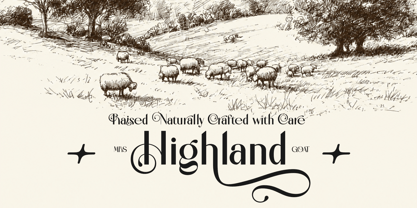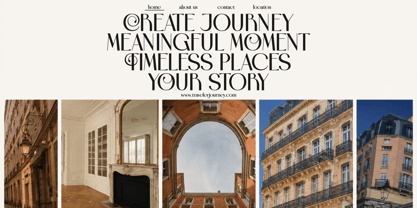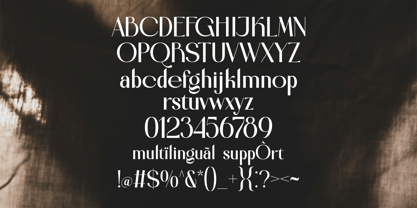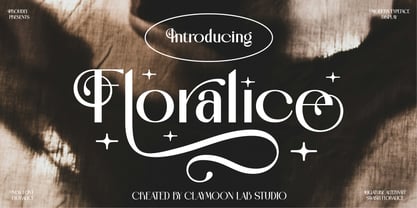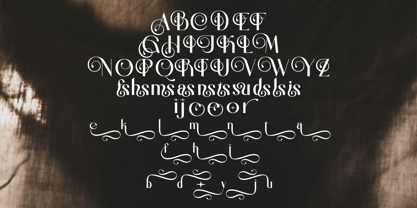
Floralice
Floralice — Modern Elegant Serif Font
Infuse your digital designs with sophistication and romantic charm using Floralice, a beautifully crafted modern display serif font. Designed with high-contrast letterforms, graceful curves, and a refined aesthetic, this typeface strikes the perfect balance between classic elegance and contemporary style. Its sweeping swashes and delicate details bring a whimsical, organic feel to any creative project.
Floralice is equipped with a stunning collection of custom ligatures and intricate alternate characters, allowing you to create highly personalized, bespoke typography. Whether you are designing for a luxury boutique, an artisan organic brand, or an elegant travel editorial, this font delivers a premium and captivating visual experience.
What's Included:
* Full Character Set: Uppercase, lowercase, numerals, and standard punctuation.
* Alternates & Ligatures: Unique decorative swashes and beautifully joined letterforms for a custom typographic finish.
* Multilingual Support: Broad language coverage for international creative projects.
Perfect For These Projects:
* Luxury & Artisan Branding: Crafting elegant brand identities, premium wordmarks, and organic farm or boutique logotypes.
* Editorial & Travel Design: Composing stylish magazine headlines, digital lookbooks, and sophisticated travel website typography.
* Digital Wedding & Event Typography: Designing romantic digital invitations, elegant save-the-dates, and beautiful event announcements.
* Beauty & Lifestyle Branding: Developing chic typography for cosmetic packaging, wellness brand guidelines, and lifestyle blogs.
* Digital & Social Media Content: Creating refined social media aesthetics, elegant quote graphics, and high-end digital campaigns.